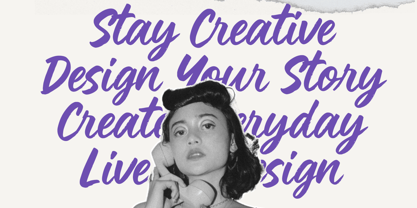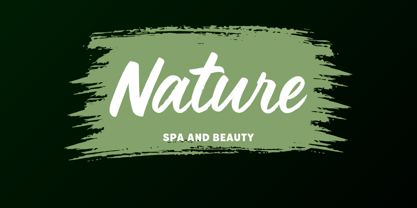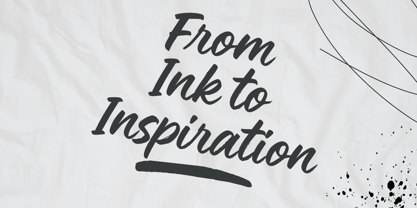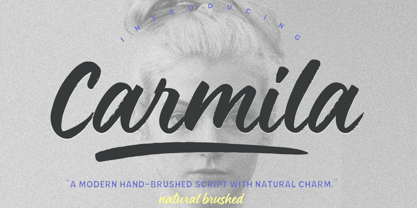
Carmila
by Cocodesign
The Carmila Font Family was designed by Muhammad Zaini and published by Cocodesign. Carmila contains 1 styles. More about this family
Carmila is a modern brush script font with smooth, confident strokes and a clean handwritten flow. Its dynamic brush texture and natural rhythm make it perfect for creating stylish, contemporary designs with a professional look. The balanced contrast between thick and thin strokes adds strong visual impact, ideal for use in branding, advertising, and editorial design. Carmila works beautifully across digital and print projects, delivering clarity and character in every layout. ✨ Perfect for: Logo and branding design Posters and headlines Product packaging Social media graphics Invitations and typography projects 💡 Features: Uppercase & lowercase letters Alternates & ligatures Numbers & punctuation Multilingual support Bonus swash underline Bring a modern brush style to your projects with Carmila, combining elegance, structure, and creative energy.
Designers: Muhammad Zaini
Foundry: Cocodesign